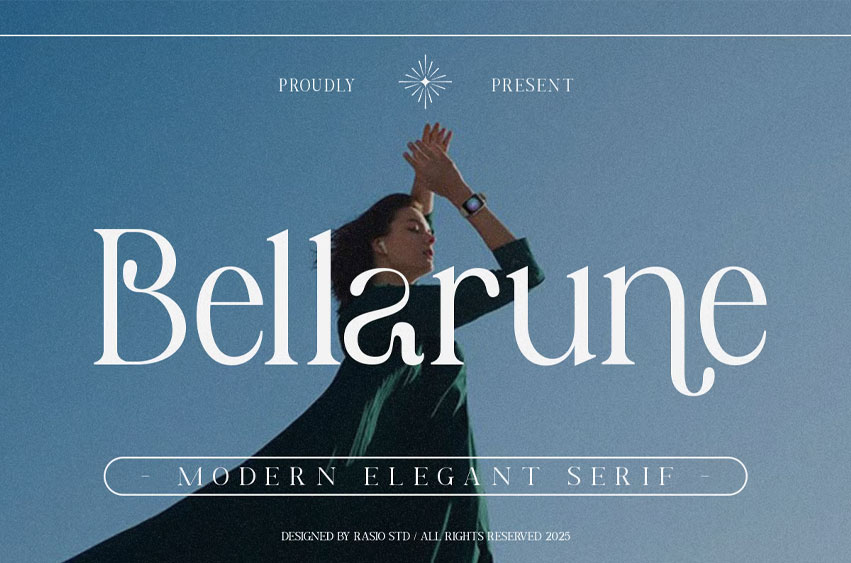
Bellarune Font
Bellarune Font is a refined and graceful modern serif typeface, designed to bring timeless elegance to contemporary design projects. With its high contrast strokes, carefully sculpted letterforms, and subtle vintage flair, Bellarune blends traditional serif sophistication with a modern aesthetic. This typeface includes uppercase and lowercase characters, numerals, and standard punctuation, ensuring it’s ready for professional use across both digital and print formats.
The font’s unique curves and stylistic touches make it ideal for high-end branding, luxury fashion campaigns, upscale editorial layouts, and stylish social media graphics. It works beautifully in both headline and body copy, offering strong readability while maintaining a polished and graceful presence.
Relevance and Uses Cases is perfect whether you’re crafting a magazine spread, designing a perfume logo, launching a boutique label, or creating wedding stationery, portfolio presentation, boutique identity, upscale social media, minimalist layout, feminine branding, product launch, business card design, lifestyle blog, high-end website, creative agency, content creator assets, classy merchandise.
Step into timeless sophistication with Bellarune a modern serif font where classic charm meets contemporary flair.